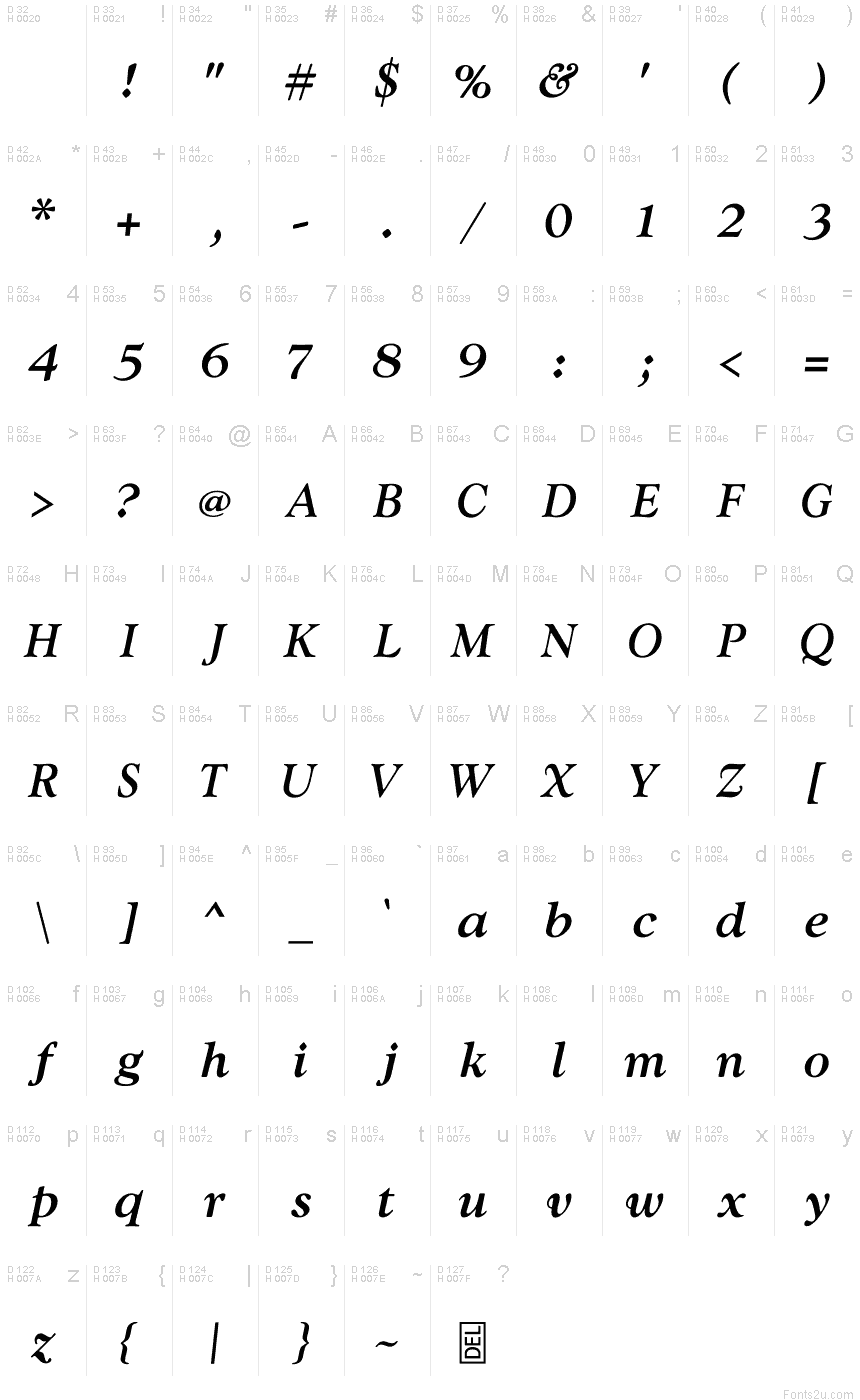
Avdira Bold Italic
Upright is based on the lowercase Greek letters in the typeface used by Demetrios Damilas for the edition of Isocrates, published in Milan in 1493. A digital revival, was prepared by Ralph P. Hancock, in his Milan (Mediolanum) font. Italic Greek were designed in 1802 by Richard Porson (1757 – 1808) and cut by Richard Austin. They were first used by Cambridge University Press in 1810. Capitals, Latin and Cyrillic, as well as the complete bold weights, have been designed in an attempt to create a well-balanced font. The font covers the Windows Glyph List, Greek Extended, various typographic extras and is available in regular, italic, bold and bold italic. The regular style of the font also covers IPA Extensions, Ancient Greek Numbers, Byzantine and Ancient Greek Musical Notation and several Open Type features (Case-Sensitive Forms, Small Capitals, Subscript, Superscript, Numerators, Denominators, Fractions, Old Style Figures, Historical Forms, Stylistic Alternates, Ligatures).